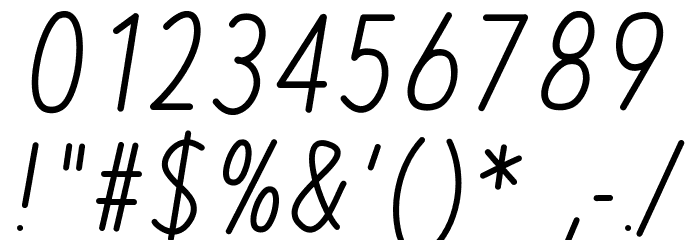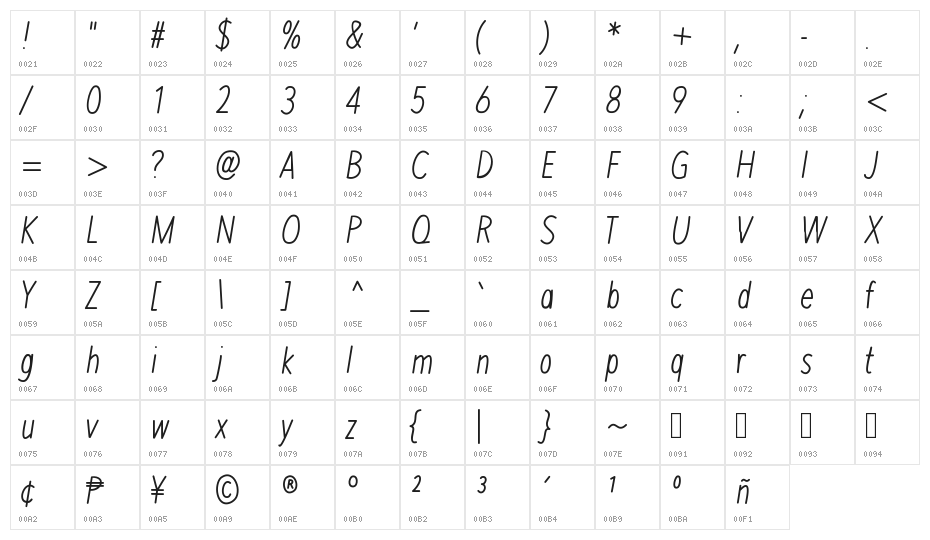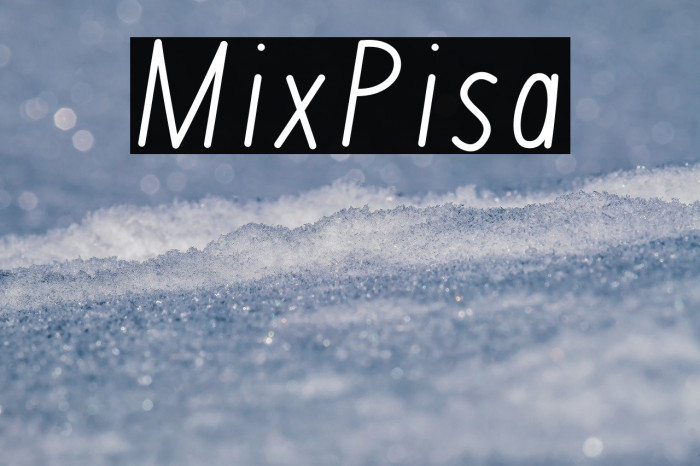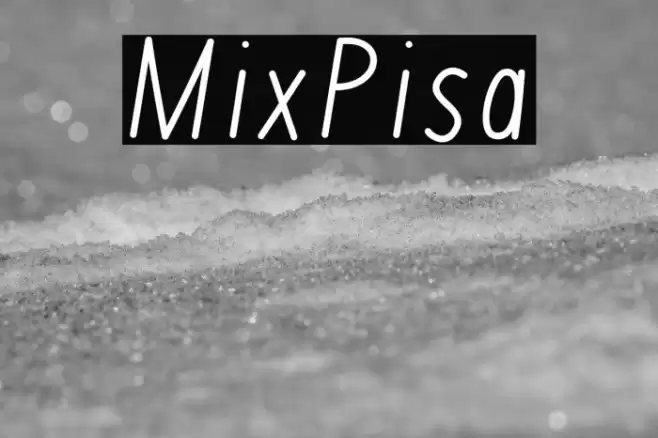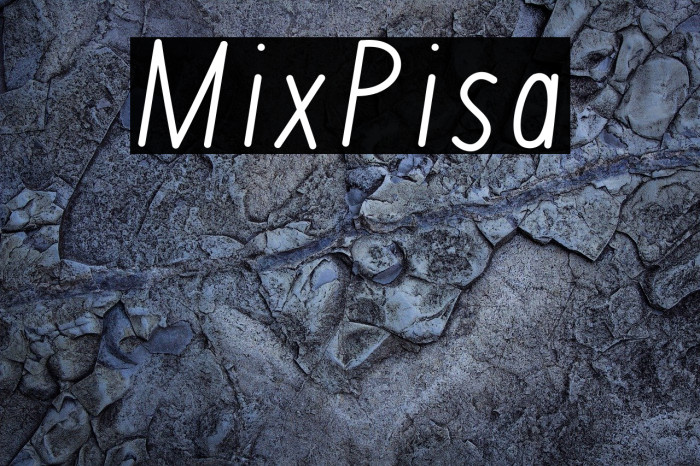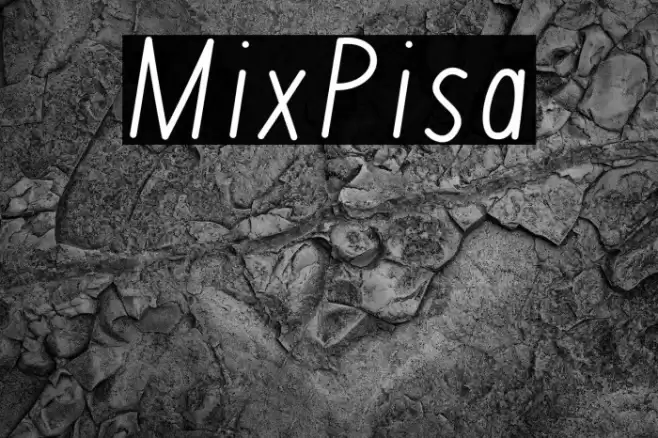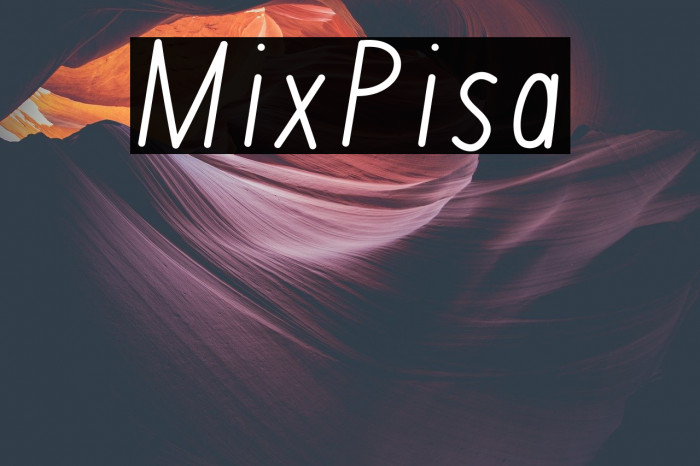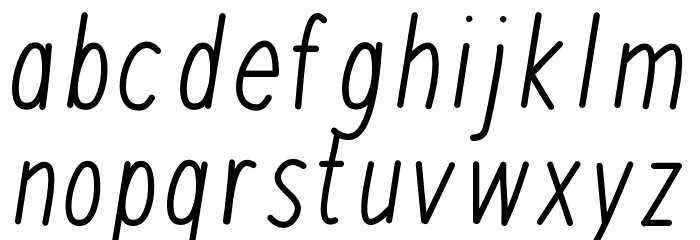
MixPisa Font
MixPisa Description
This font features a clean and modern design with a slight slant, giving it a dynamic and energetic feel. The characters are evenly spaced, maintaining a consistent flow throughout. The uppercase letters are tall and slender, while the lowercase letters are more rounded, providing a nice contrast. The numerals are clear and easy to read, making them suitable for various applications. The special characters are well-integrated, maintaining the overall aesthetic of the font. This style is versatile, suitable for both digital and print media, and can be used in a variety of design projects.